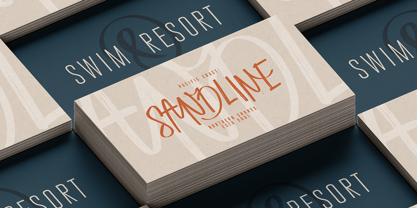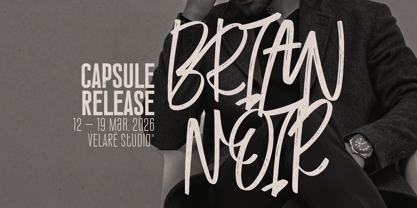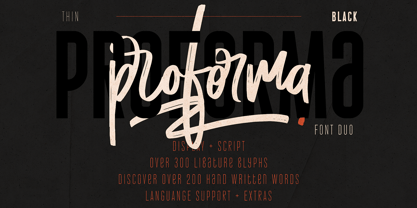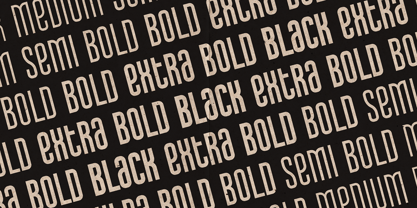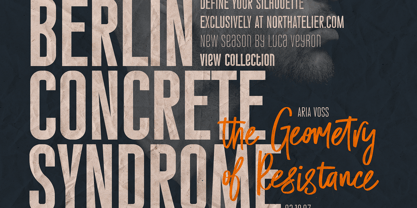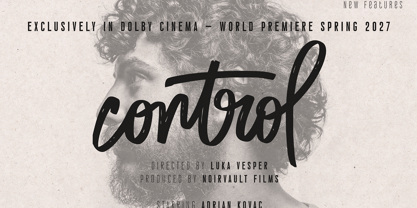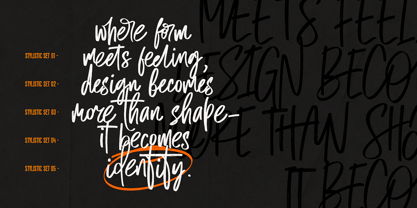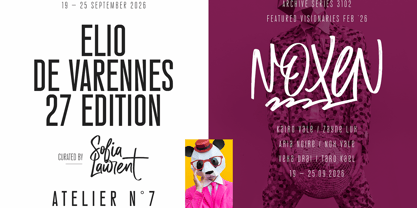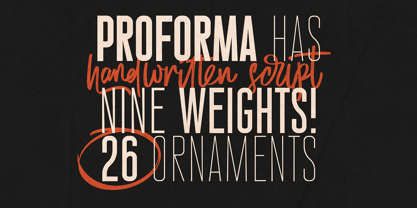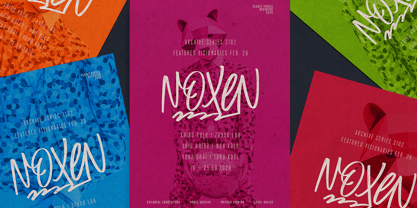
Proforma
by VP Creative Shop
The Proforma Font Family was designed by Vladimir Fedotov, Plamen Petrov and published by VP Creative Shop. Proforma contains 11 styles and family package options. More about this family
Proforma – Modern Display & Script Font Duo Proforma is a powerful and expressive font duo combining a bold, high-impact display sans with a dynamic handwritten script - crafted for brands that want to stand out with confidence, contrast, and personality. Designed for editorial layouts, fashion campaigns, luxury branding, film posters, social media graphics, and premium packaging, this duo delivers the perfect balance between structure and spontaneity.
Designers: Vladimir Fedotov, Plamen Petrov
Foundry: VP Creative Shop